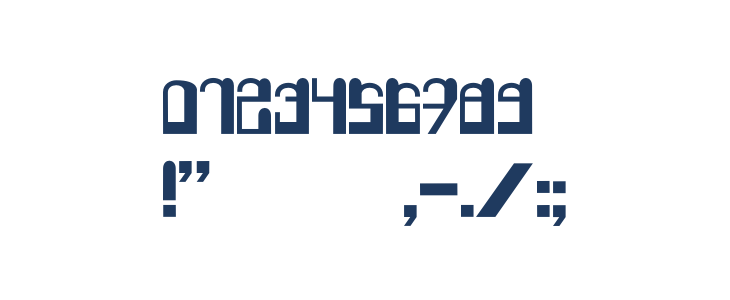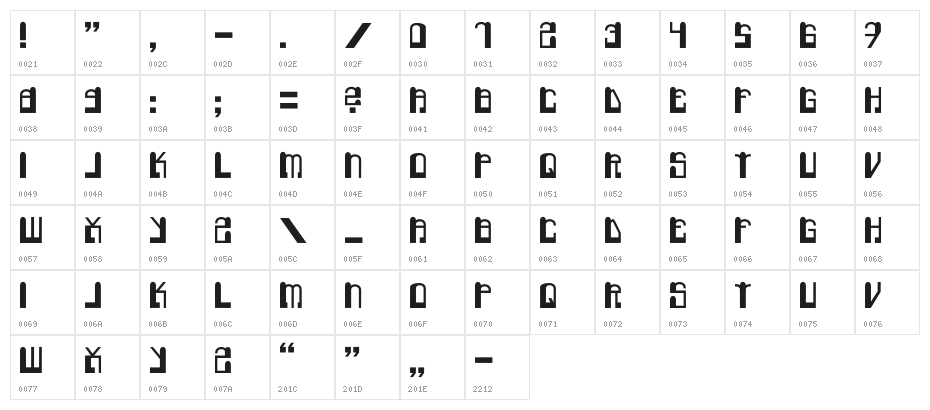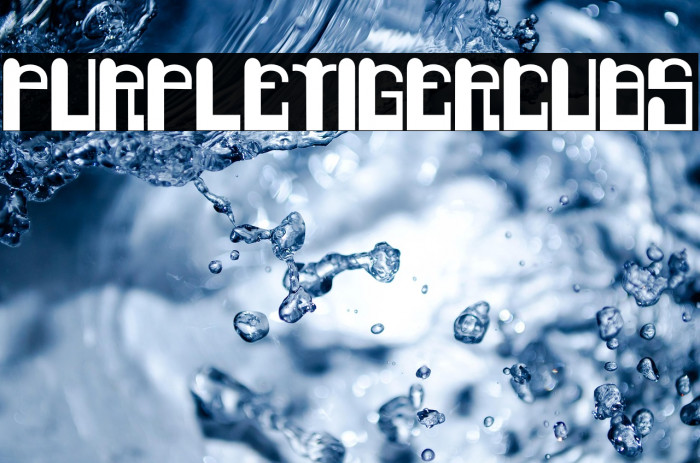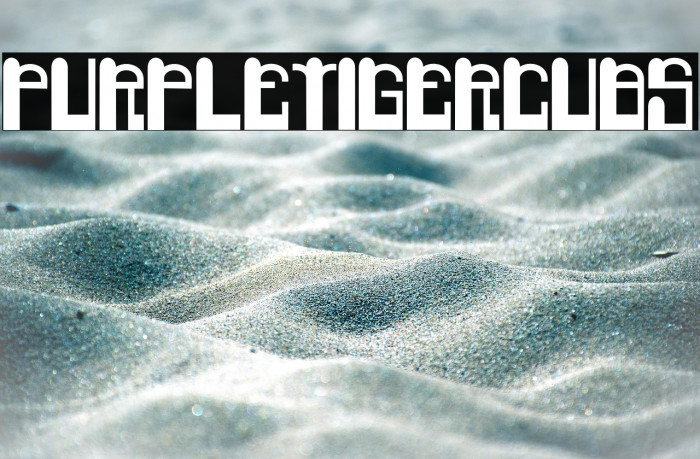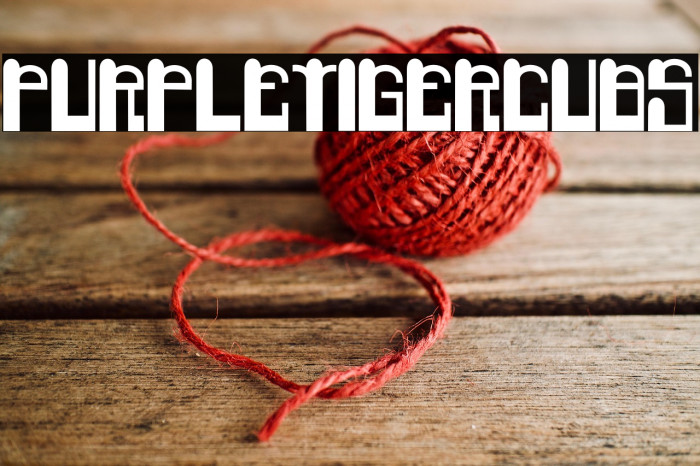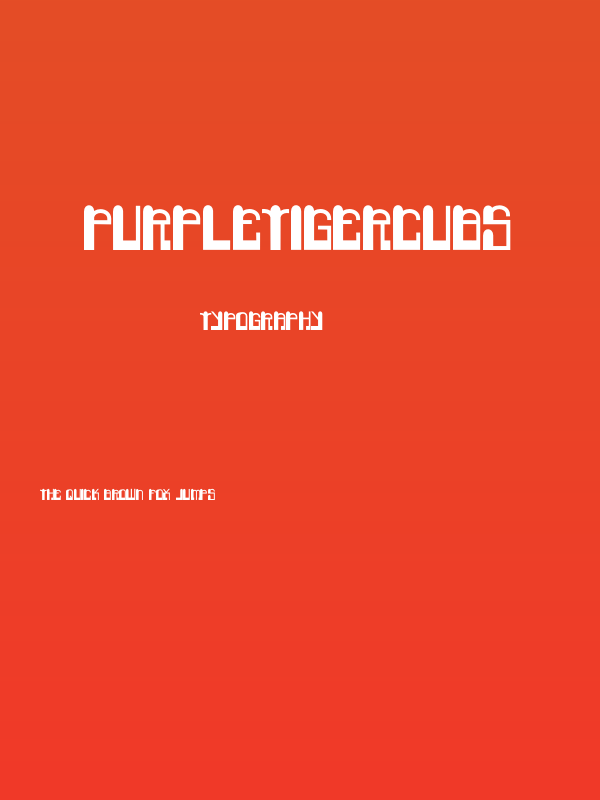
PurpleTigerCubs Font
PurpleTigerCubs Description
This font features a bold and geometric style with a strong emphasis on angular shapes and sharp edges. The characters are constructed with a mix of thick and thin strokes, creating a high contrast that draws attention. The uppercase letters are particularly striking, with unique cutouts and unconventional forms that give the font a modern and futuristic appearance. The numbers and special characters maintain this aesthetic, ensuring consistency across all glyphs. The overall design is both eye-catching and distinctive, making it suitable for projects that require a bold statement.
| Proposed Projects | Ideal for branding, posters, album covers, and any design that needs a futuristic and bold look. |